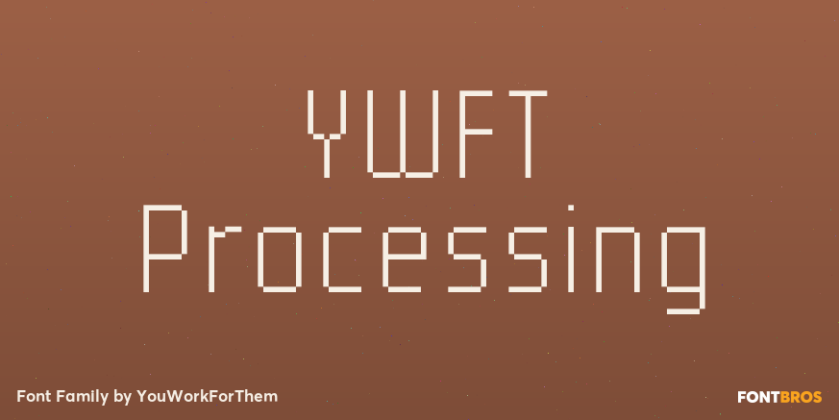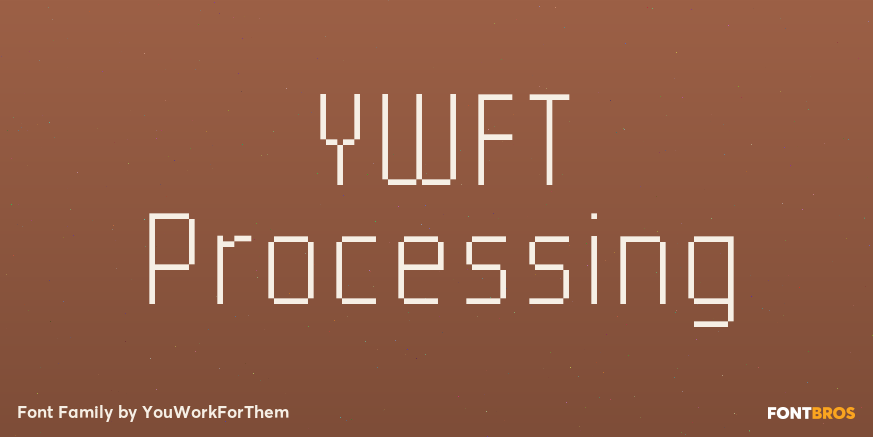
YWFT Processing
About YWFT Processing
YWFT Processing was developed in 2001 for Casey Reas, the co-creator of the Processing programming language. We created this display face to be sharp, tall, unique and interesting…much like Mr. Reas himself. The font was derived from an original logo…